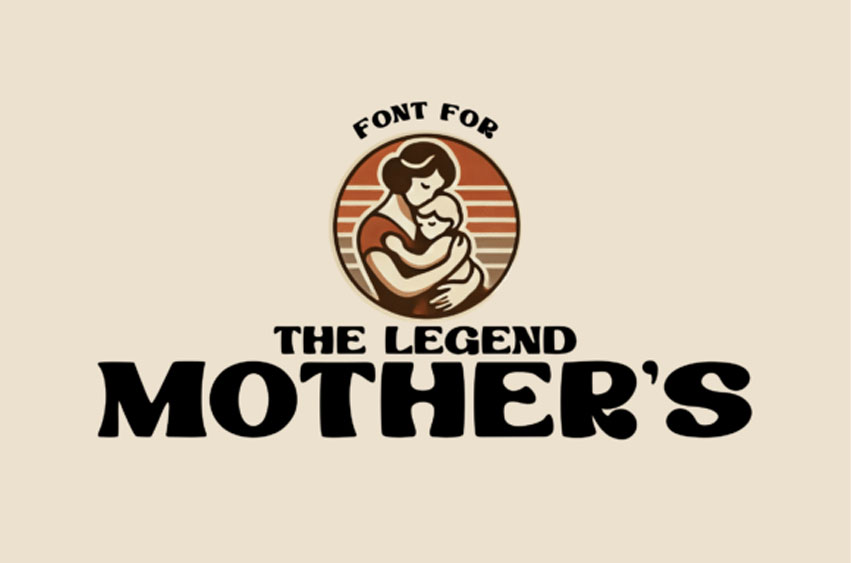
The Legend Mother's Font
The Legend Mother’s Font
The Legend Mother’s Font Immerse yourself in the world of calligraphy with The Legend Mother’s Font. With its refined elegance woven into each letter, this handwritten script adds a touch of luxury to any typography project.
Whether you’re crafting a modern brand identity or illustrating an artistic typographical design, this font transforms the ordinary into extraordinary. Its versatile styling is perfect for telling love stories on wedding invitations or creating stunning visuals on digital platforms.